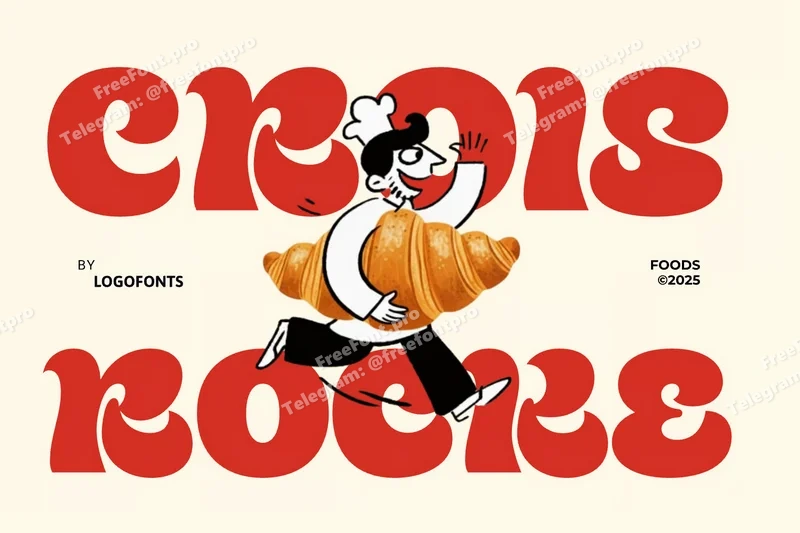
Crois Rocke – Food Font
Crois Rocke is a playful and chunky display font inspired by the joy of baking and sharing good food. Its rounded curves and cheerful rhythm make it ideal for bakery, café, or restaurant branding that wants to feel warm and inviting. Perfect for coffee menus, candy packaging, and pizza logos that need a fun, approachable vibe.
Designed to look as delicious as a fresh croissant, Crois Rocke adds flavor to every design it touches. Whether for cooking blogs, chocolate stores, or kitchen product branding, this font turns every project into a feast for the eyes and taste buds.